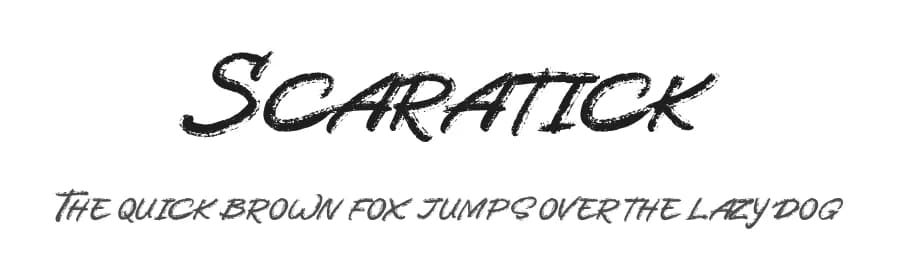
About Scaratick Font
Scaratick is a script & handwritten font designed by FHFont. It includes 157 glyphs, a regular weight, OTF (CFF) format, and 107 languages. Scaratick is free to download; check the license details on this page before commercial use. Script & handwritten fonts like Scaratick work best for wedding invitations, greeting cards, signatures, and elegant branding.
Scaratick Font is a script font that shines as a display or heading face. Pair it with a clean sans-serif or serif font for body text β the contrast creates a clear hierarchy while the two styles stay balanced and easy to read.